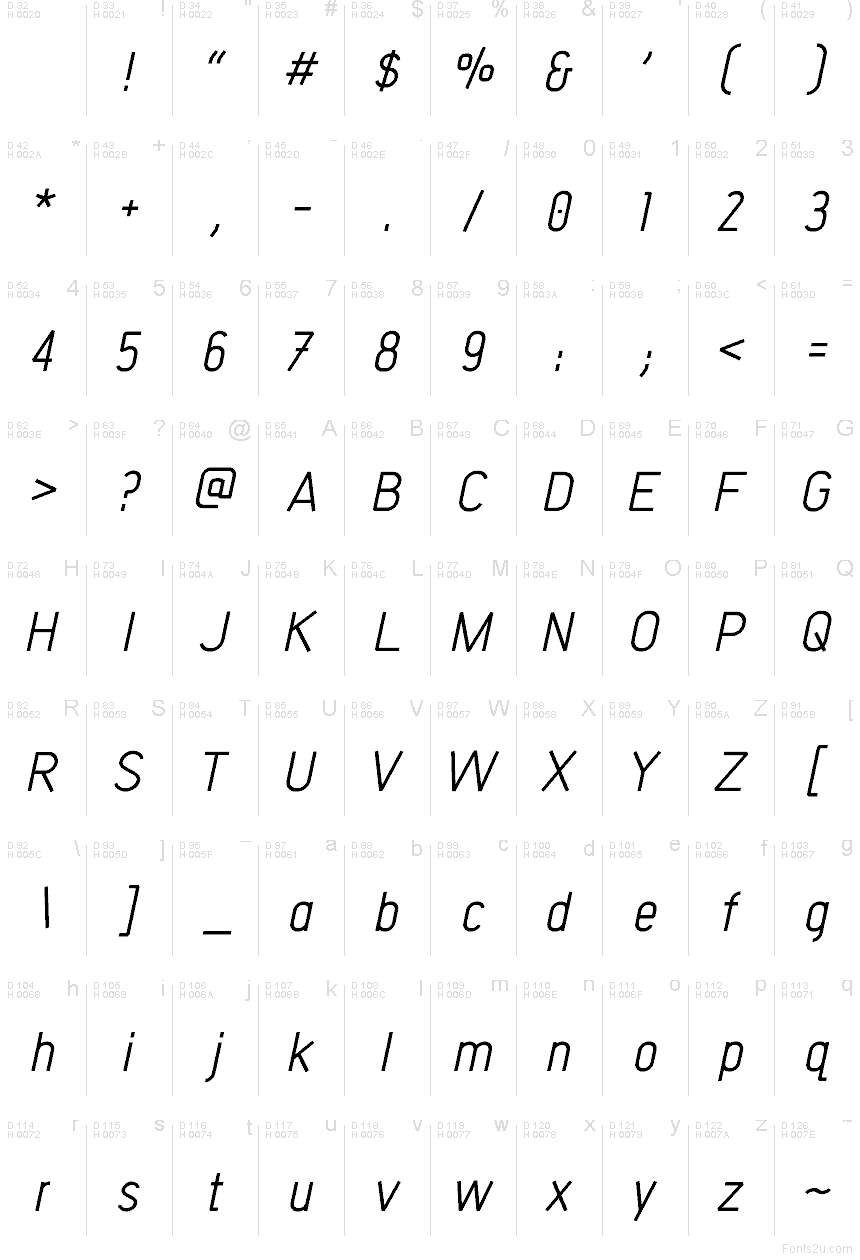
Maneuver Thin Italic
Maneuver Thin Italic font by Mark L of Factus Creative is a free italic sans serif typeface that feels like motion captured in ink. The slender strokes and steady forward slant give every word a sense of speed and direction, like signage glimpsed from a moving train. Its clean, open forms stay readable even at smaller sizes, while the thin weight keeps layouts feeling light, modern, and uncluttered.
Using Maneuver Thin Italic, you can inject subtle movement into interface labels, tech branding, transport graphics, minimalist posters, and dynamic social media visuals. This free font shines on headlines and callouts that need to look fast yet refined, and it works beautifully when paired with a sturdier upright sans from the Maneuver family for body text.